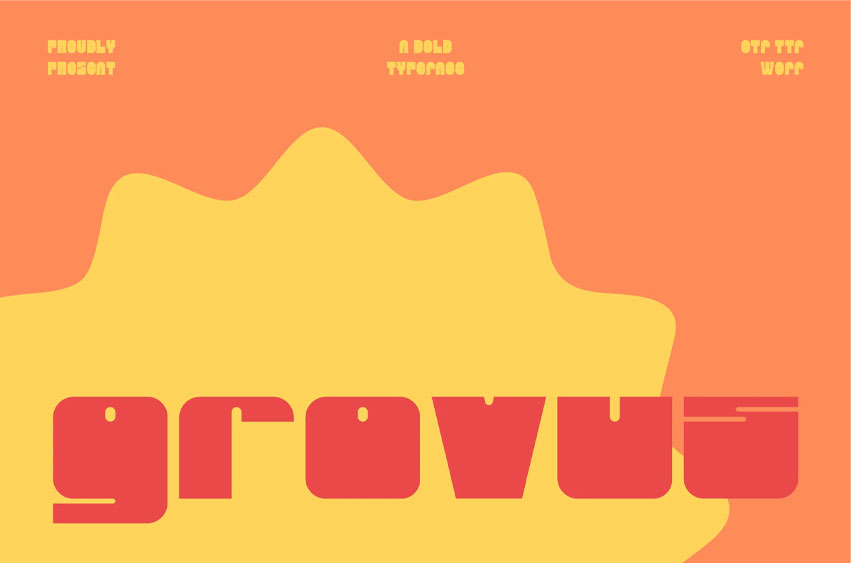
Grovuz Font is a bold, expressive typeface with a distinctive and energetic personality.
Its unique letterforms and confident presence make it perfect for brands that want to stand out and make a lasting impression.